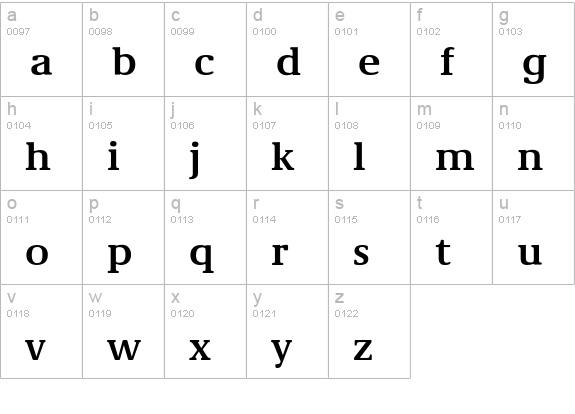
DemosEF-SemiBold is a sub-bold, structured variant in the DemosEF typeface family \xE2\x80\x94 well suited to sub-headlines and emphasised passages.
DemosEF-SemiBold font is a modern and versatile typeface that exudes sophistication and elegance. With its bold yet sleek design, this font is perfect for creating eye-catching titles, headers, and branding materials. The semi-bold weight adds a touch of emphasis and makes a strong visual impact. What sets DemosEF-SemiBold font apart is that it is not only stylish and functional but also free for personal and commercial use. You can easily download this font at FontsMarket.com, where it is available for free, allowing you to enhance your design projects without any cost constraints. Whether you're working on a website, poster, logo, or any other design project, DemosEF-SemiBold font is sure to elevate your work with its contemporary and professional appearance.